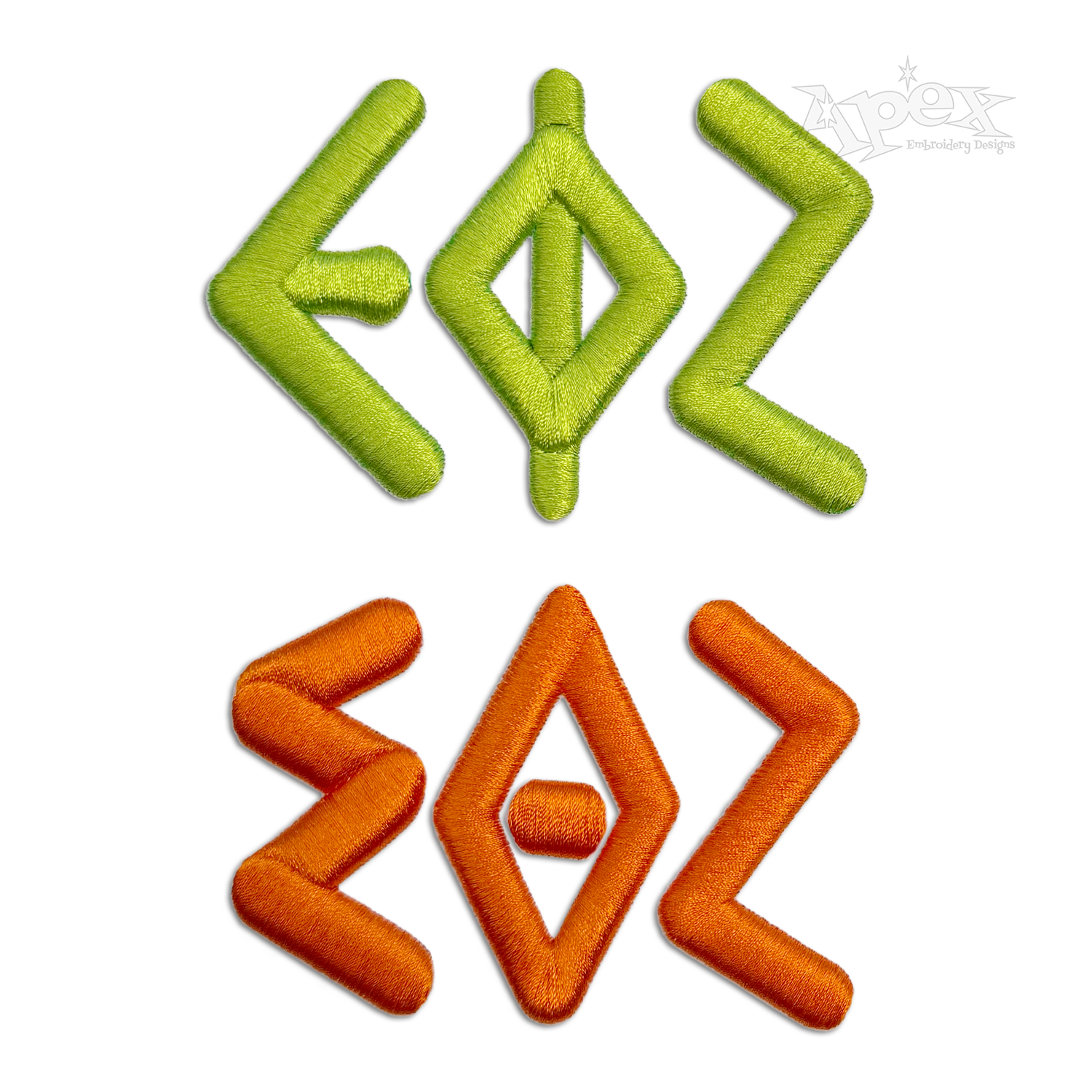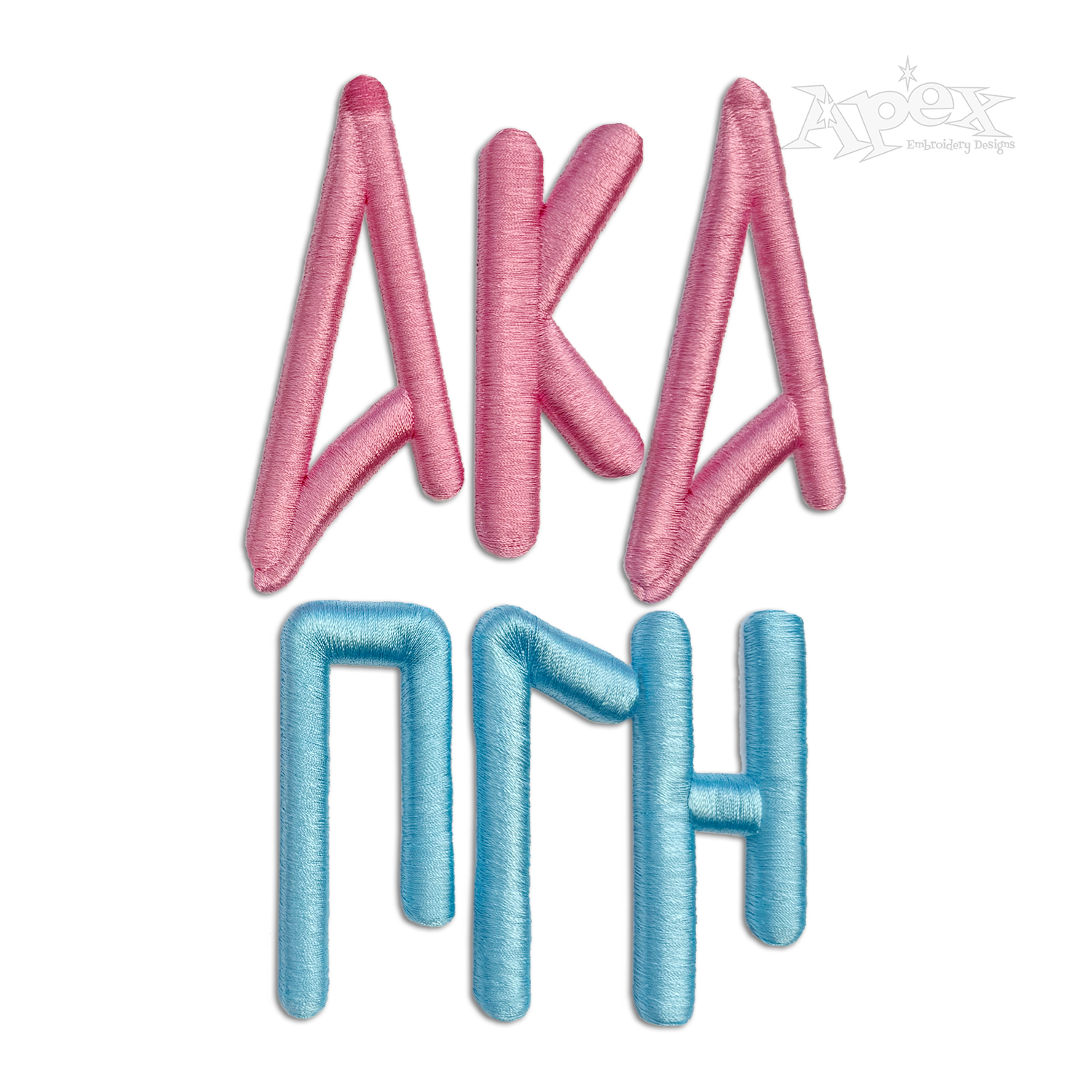
Greek Fun 3D Puff Embroidery Font
There is an undeniable thrill in watching flat thread transform into sculptured, tactile art, and our Greek Fun 3D Puff Embroidery Font was born from that exact creative energy. Designed to bring exuberant spirit and architectural presence to modern stitchery, this alphabet celebrates the timeless camaraderie of campus life and spirited team pride. When paired with embroidery foam, each letter lifts boldly off the fabric, creating rounded, pillowy letterforms that beg to be touched. It is a playful yet meticulously engineered font that bridges the gap between classic collegiate heritage and contemporary dimensional streetwear.
To give you total creative freedom across garments of varying scale, the Greek Fun 3D Puff alphabet has been digitized and tested across four distinct heights:
- 1.0" height (ideal for subtle accents, structured headwear, and pocket monograms)
- 1.5" height (perfect for sleeve statements and youth fleece)
- 2.0" height (bold, commanding presence for mid-chest lettering and accessories)
- 2.5" height (maximum 3D loft and impact for oversized varsity apparel and gear bags)
Project Ideas for Greek Fun 3D Puff
The raised loft of this alphabet transforms casual blanks into bespoke, premium statement pieces. Consider stitching it across:
- Greek Life & Bid Day Apparel: Stitch sorority or fraternity letters across heavy-cotton crewnecks, relaxed-fit hoodies, and vibrant spirit jerseys.
- Structured Headwear: Transform blank baseball caps, flat-brim snapbacks, and bucket hats with high-impact dimensional monograms.
- Varsity & Tailgate Outerwear: Embellish sideline windbreakers, retro bomber jackets, and stadium blankets with punchy, raised lettering.
- Heavyweight Canvas Totes: Elevate weekender duffels and collegiate book bags with durable, tactile personalized gifting accents.
- Custom Athleisure: Detail sweatpant cuffs, fleece shorts, and warm-up gear with modern, energetic typography.
Dimensional foam embroidery thrives on stable, deliberate positioning. We recommend utilizing:
- Center Chest: The 2.0" and 2.5" sizes anchor oversized apparel effortlessly, commanding attention across the sternum.
- Structured Cap Fronts: The 1.0" and 1.5" scales conform cleanly to front buckram panels without distorting crown geometry.
- Forearm & Sleeve Runs: A stacked or vertical letter arrangement down the sleeve offers an athletic, street-inspired motif.
- Upper Back Yoke: Place larger letter groupings across the shoulders for a classic varsity look visible from across the arena.
Greek Fun 3D Puff Craft & Letterform Details
True 3D puff digitizing is a science of balance, tension, and precision capping. The Greek Fun letterforms feature generously weighted strokes and softly radiused terminals that allow embroidery foam to compress evenly beneath high-density satin columns. Each letter is mapped with specialized slicing travel stitches and closed end-caps designed to perforate the foam cleanly at the edges, preventing unsightly core exposure and ensuring a crisp, smooth silhouette. The generous column widths invite generous thread coverage, locking in the loft while yielding a plush, resilient finish that keeps its elevated shape wear after wear.